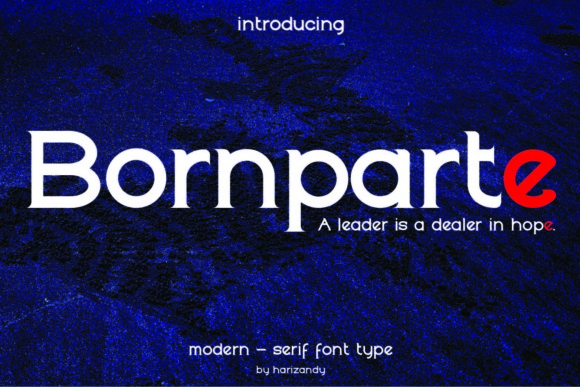
The Bornparte Font: A Display Serif Powerhouse for Creative Projects
As a designer, I’ve learned that finding the right font can make or break a project. And I’m excited to share with you why Bornparte has become one of my go-to display serif fonts for creative projects.
An Honest Review of Bornparte
- ✅ The font comes with not one, but two sets of uppercase letters (all-caps), giving me plenty of flexibility for creative experimentation.
- ✅ The display serif style is perfect for headlines, posters, and editorial design, adding a touch of sophistication to any project.
- ✅ Bornparte’s versatility makes it suitable for brand identity, website headers, logos, and more.
While Bornparte is an excellent font, there are a few things to keep in mind: 🤔
- ⚠️ As a display serif font, Bornparte might not be the best choice for body text or reading-heavy content.
- ⚠️ Some users may find the font’s eccentricities, such as the two sets of uppercase letters, require a bit of getting used to.
The Designer Inspiration Behind Bornparte
While the true story behind Bornparte’s creation remains a mystery, it’s easy to imagine that the font was inspired by the elegant typography of 18th-century European luxury brands. Perhaps the designer, fueled by a passion for vintage typography and modern design, set out to create a font that would evoke the sophistication and refinement of a bygone era.
Q: What type of projects is Bornparte best suited for?
A: Bornparte excels in display-heavy projects, such as branding, posters, editorial design, and website headers.
Q: Can I use Bornparte for body text?
A: While Bornparte is a beautiful font, it’s not ideal for body text due to its display serif style.
Q: Does Bornparte come with any special features?
A: Yes, Bornparte includes two sets of uppercase letters (all-caps) and supports OpenType features, glyphs, and stylistic alternates.
Q: Is Bornparte suitable for logo design?
A: Absolutely! Bornparte’s unique style and versatility make it an excellent choice for logo design and brand identity projects.